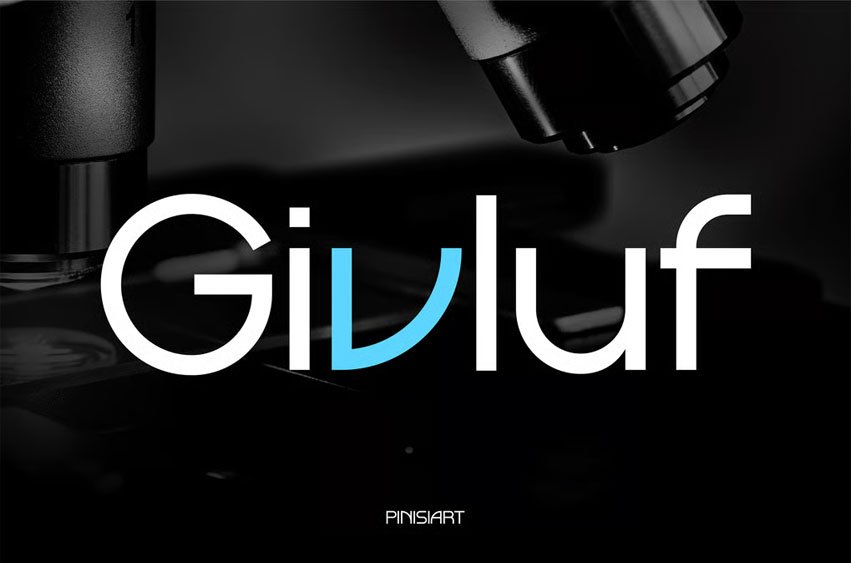
Givluf Font is a geometric display typeface built for clarity, proportion, and structural finesse. Its circular terminals, wide apertures, and precise spacing reflect the discipline of scientific innovation and industrial engineering. The design exudes a technical yet refined aura, ideal for projects that demand modern clarity, reliability, and forward-thinking aesthetics.
Inspired by laboratory signage and industrial identity systems, GIVLUF delivers visual precision with a clean, controlled rhythm. It’s the typeface that bridges design logic and aesthetic intelligence, perfect for contemporary brands that value innovation and precision in every detail.
Whether you’re creating corporate branding, laboratory interfaces, modern tech posters, or editorial layouts, GIVLUF gives your text a systematic yet stylish appearance. Its rational geometry makes it suitable for scientific publications, tech startups, architectural firms, and digital product branding. Designers looking for a font that communicates confidence, innovation, and structural clarity will find GIVLUF the ideal visual partner — especially in environments where form follows function.
Key Features: Balanced Geometry & Consistent Weight
- Crafted with precise proportions and even optical balance for easy readability. Modern Industrial Character
- Inspired by clean architectural lines and laboratory typography aesthetics. Versatile for Technical & Branding Use
- Works across research visuals, corporate identity, and tech-based presentations. Functional Readability
- Optimized letter spacing and consistent vertical rhythm for digital and print clarity. Sophisticated Personality
- Blends a professional tone with futuristic charm to elevate industrial-themed projects.